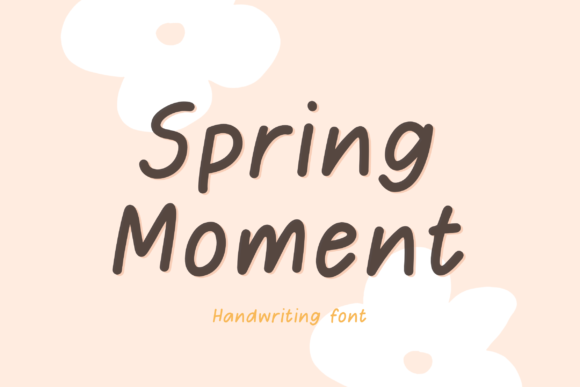
Embrace the charm of handwritten elegance with Spring Moment Font, a captivating script font family that exudes warmth and personality. Designed by the talented Jyllyco, this font is a perfect choice for teachers, educators, and anyone seeking to add a touch of handwritten charm to their projects.
With its graceful strokes and playful curves, Spring Moment Font brings a sense of authenticity and warmth to your designs. Its carefully crafted characters evoke the feeling of a heartfelt note, making it an ideal choice for creating personalized messages, invitations, greeting cards, and digital planners.
Immerse yourself in the versatility of Spring Moment Font, suitable for a wide range of digital and printable projects. Whether you're designing logos, branding materials, social media posts, or blog content, this font adds an enchanting touch that captivates your audience.
Unleash your creativity with Spring Moment Font and explore a world of endless possibilities. Its charming style complements invitations, digital bullet journals, photo albums, and decorations, adding a personal touch that makes your projects truly memorable.
Step into the world of Spring Moment Font and discover the beauty of handwritten elegance. Let your creativity bloom and create designs that resonate with your audience, leaving a lasting impression that speaks volumes.